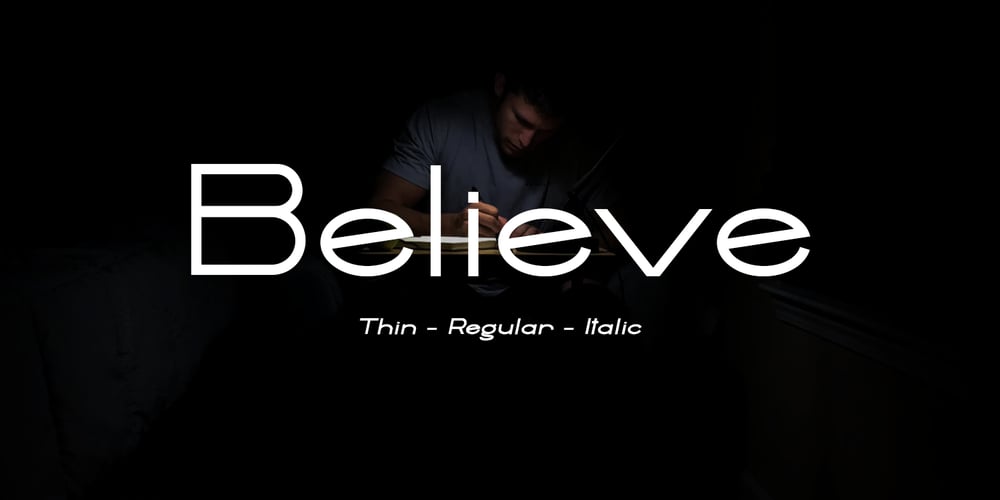
Believe Font Family was designed by Sarwo Edhi Prayitno and published by Haksen. Believe contains 4 styles and family package options. Believe is a versatile font family. Strong capitals and a smooth, open lowercase are effective in a variety of applications.The geometric, near-monoline construction lends a classic durability, tempered by softened edges and vibrant shapes.Version Including : Thin, Regular, also in slant (Italic). Every letter has been redrawn and refined, with improved kerning and expanded language support.